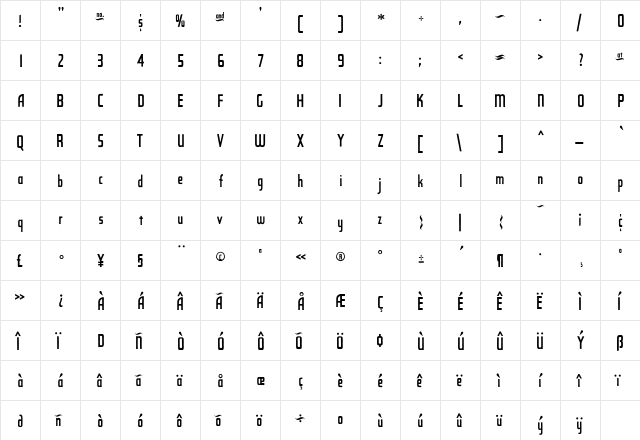
Polytone Regular
Design Context for Polytone Typeface
Polytone is a composed and adaptable typeface that performs quietly and consistently across a wide range of design contexts.